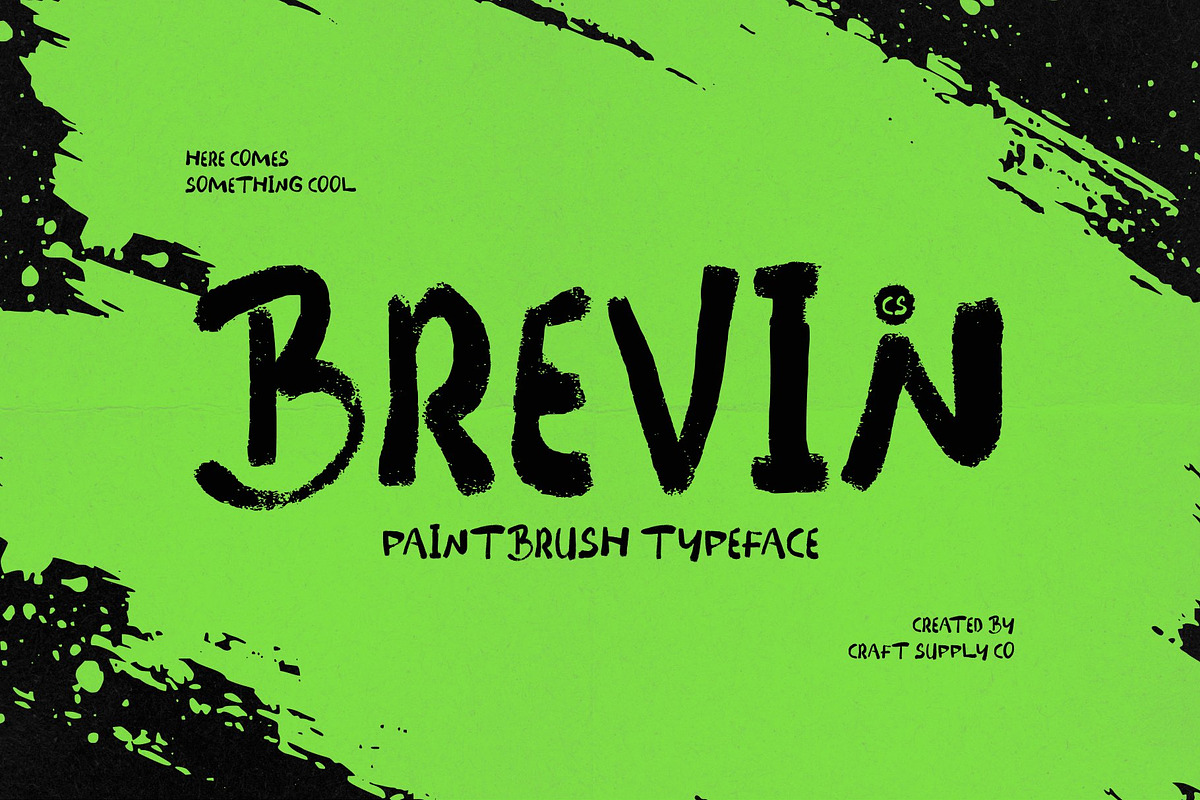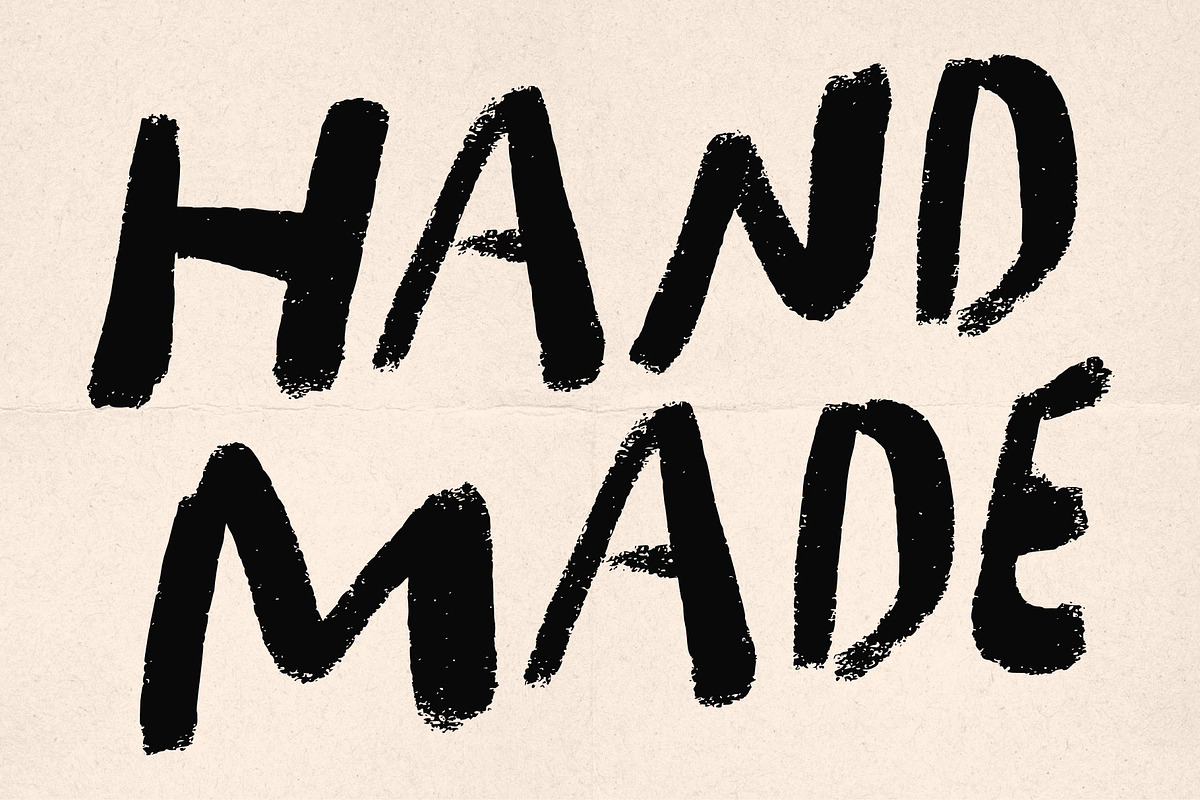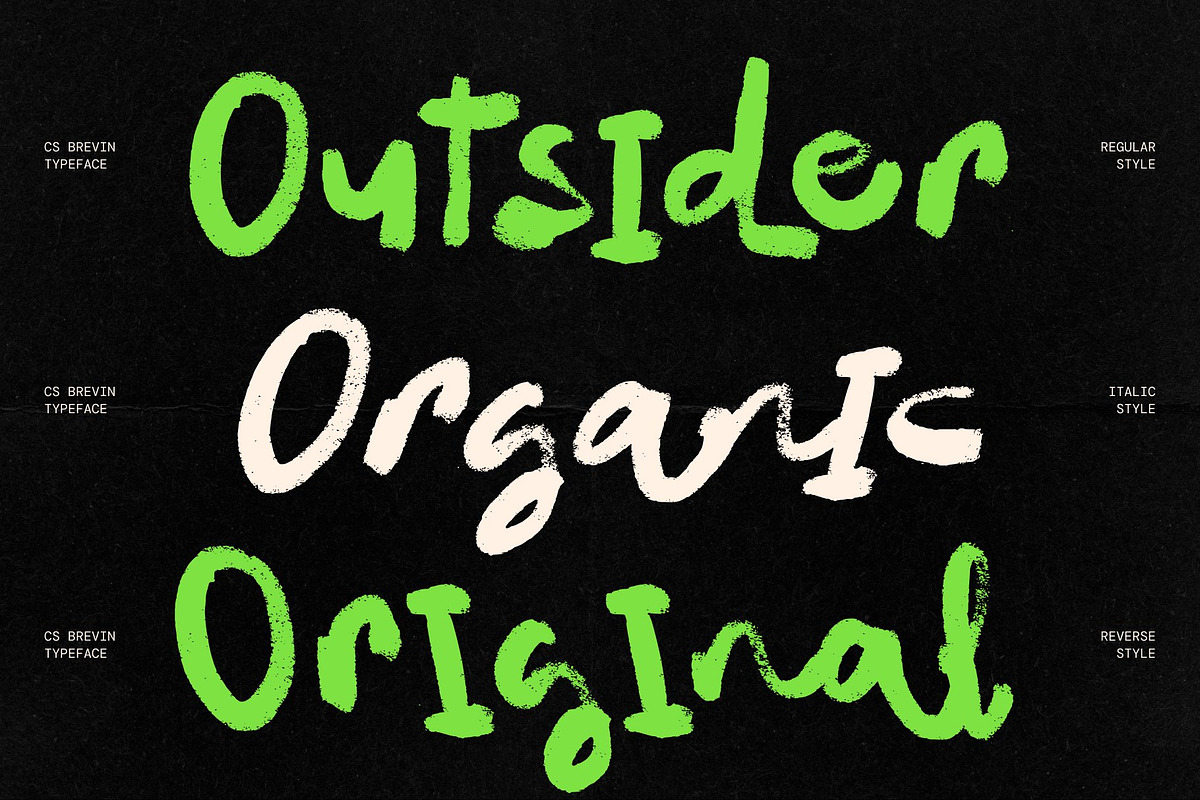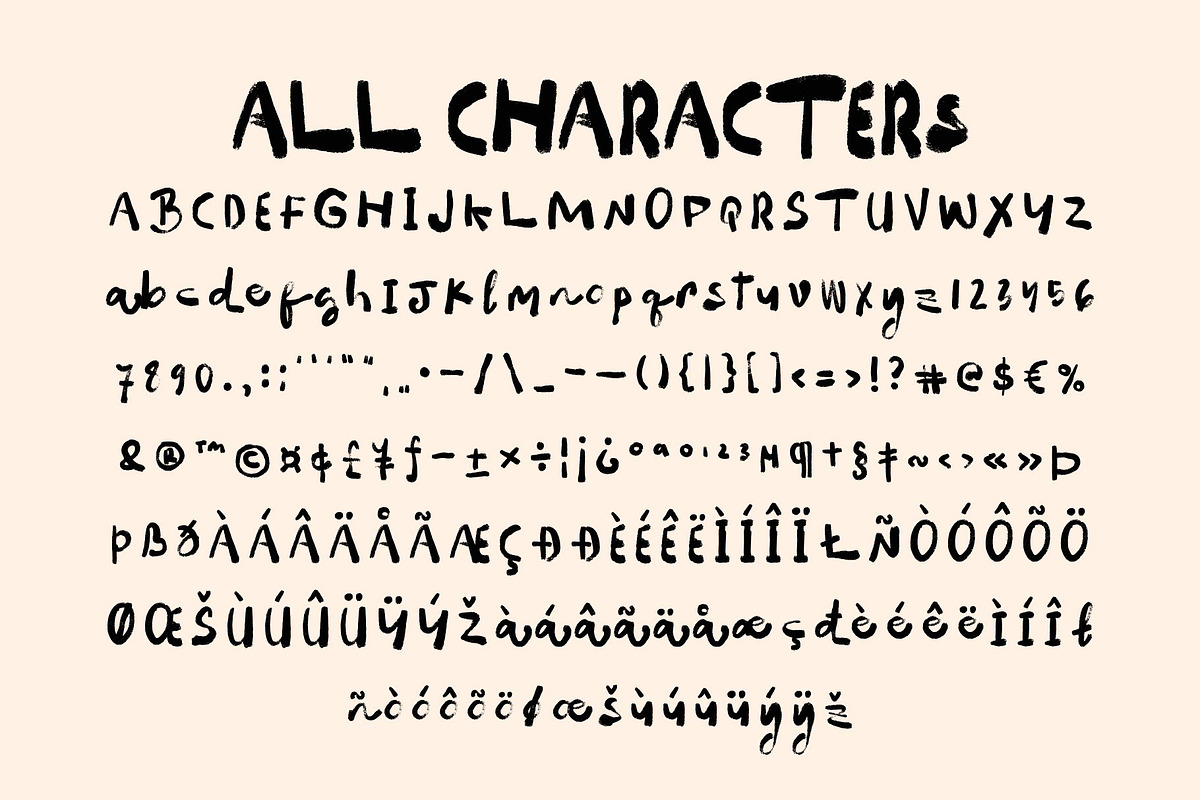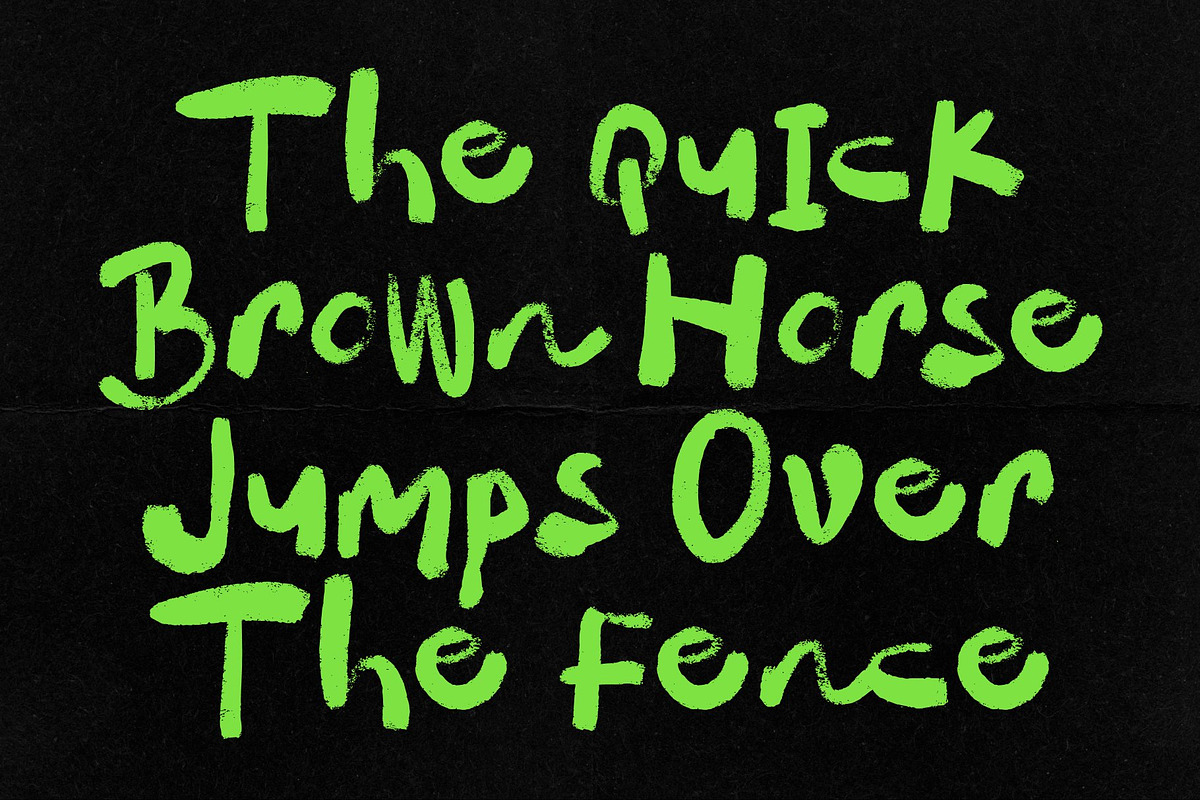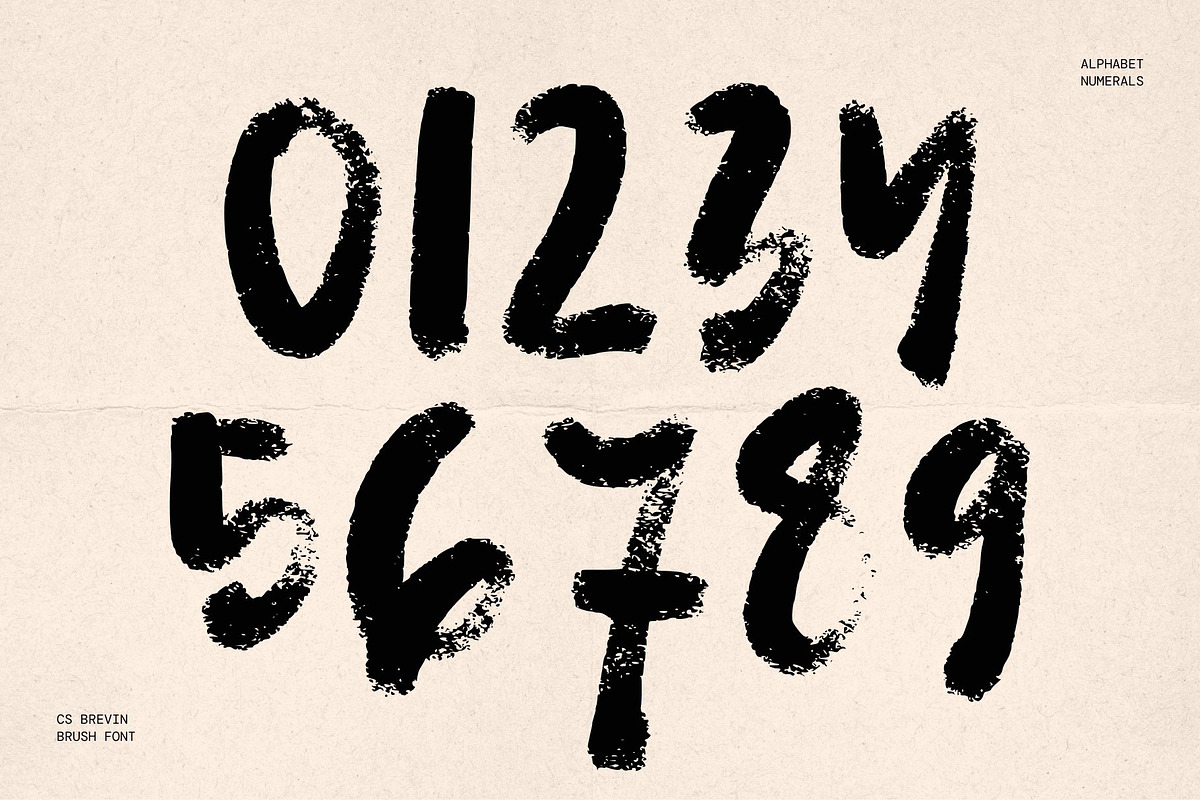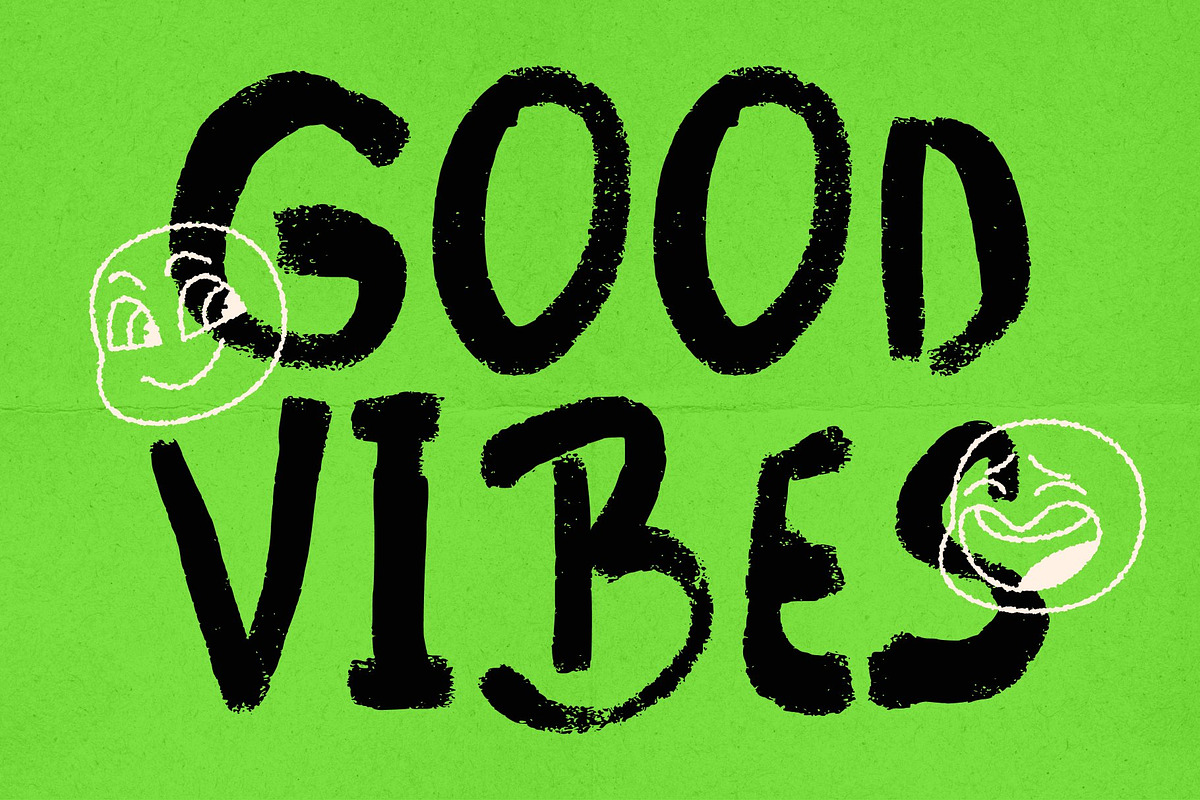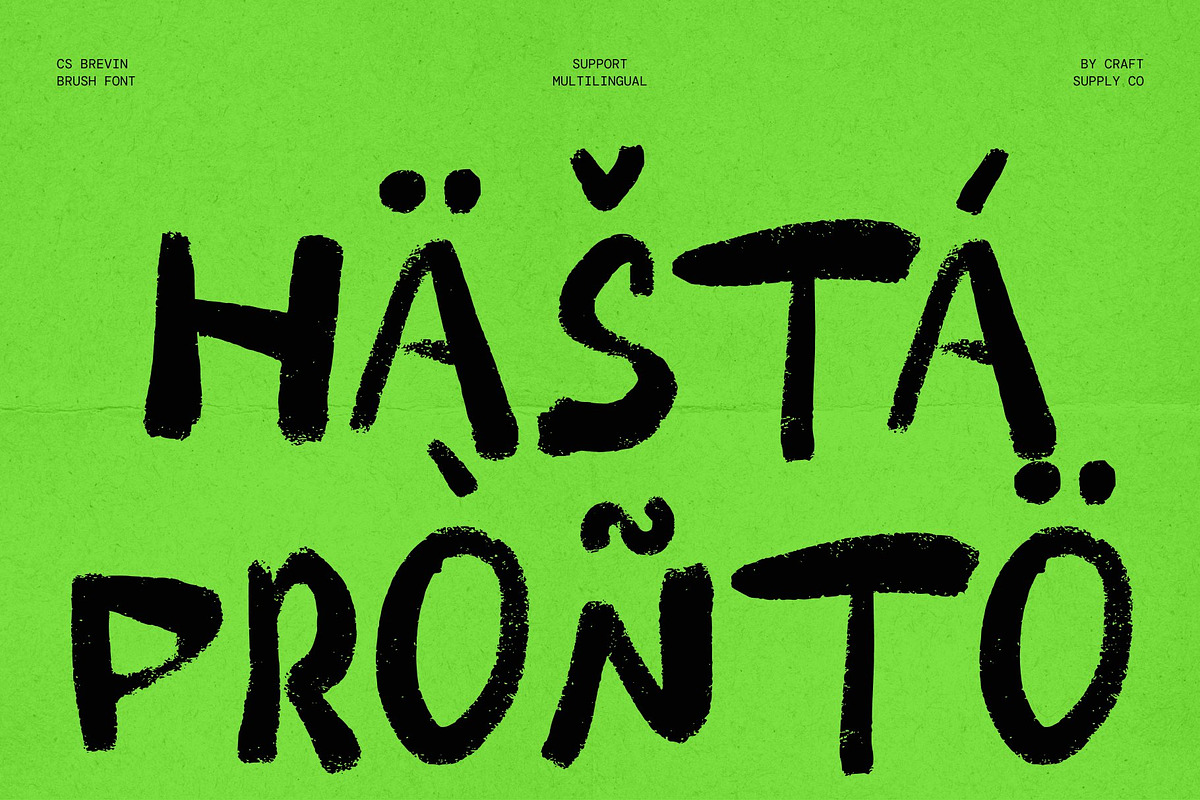
CS Brevin
This is a paintbrush display typeface with a bold, playful presence and an unmistakably handmade character. Its letterforms capture the energy of loose brush strokes, sketchbook notes, and the quick expressive marks made at the end of a paintbrush. The result is lettering that feels active, personal, and full of visual movement.
This font brings irregular brush energy and expressive detail to prominent words and short phrases. Its strong display scale gives headlines a confident impact, while the hand-drawn quality keeps the overall impression approachable rather than overly polished. Use it when a design needs personality, warmth, and an artistic touch.
This font perfect for creative branding, posters, packaging, social media graphics, event promotions, and editorial headlines. It can add a handmade accent to a logo or campaign title, give a poster an immediate focal point, or bring the feel of a sketchbook mark to product labels and promotional artwork. Its playful voice suits concepts that benefit from visible human expression.
Pair this font with clean supporting typography to create contrast and preserve readability in longer text. Keep it focused on display roles where its brush-driven character can lead the composition, from a single memorable word to a compact headline.